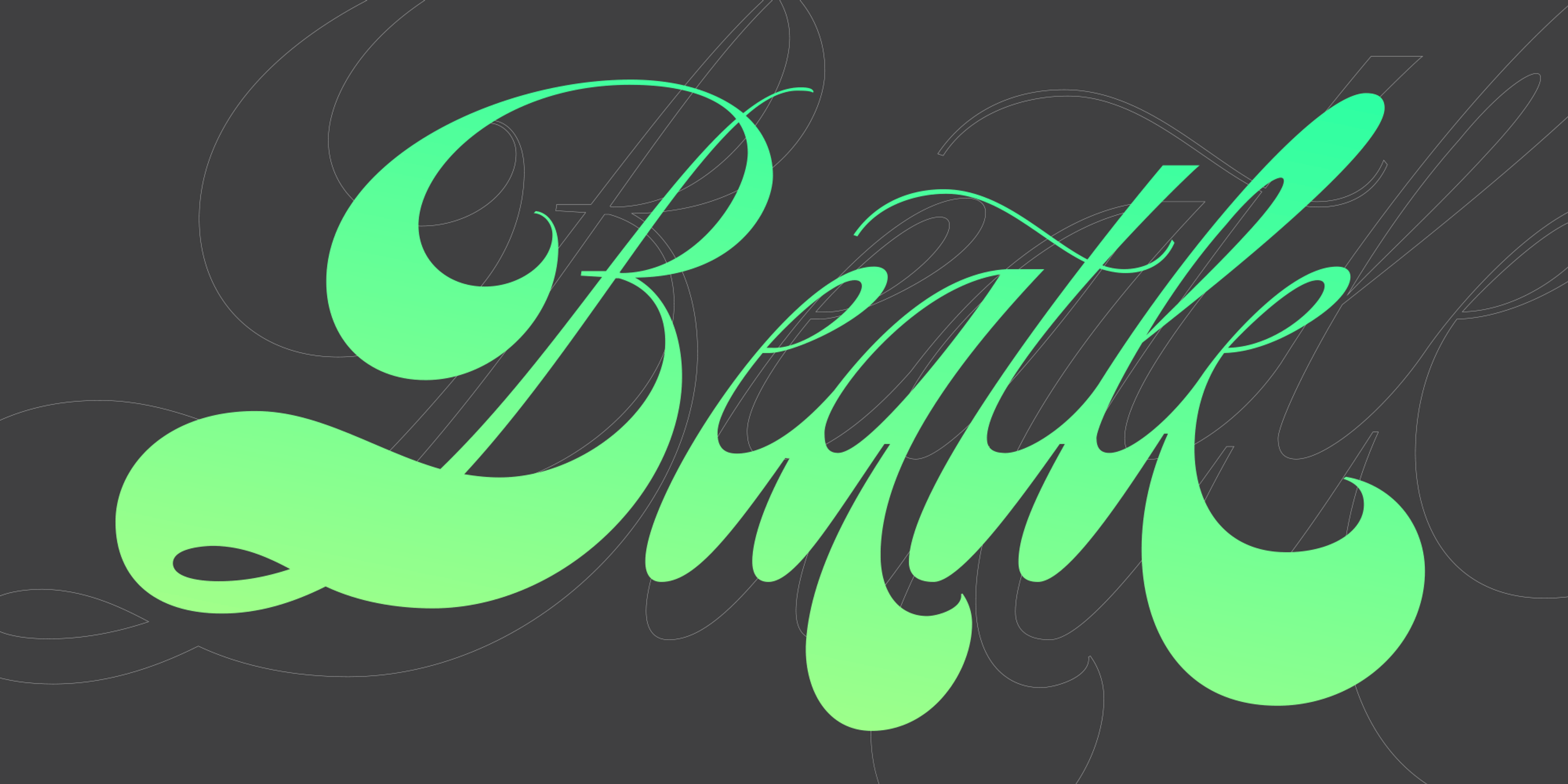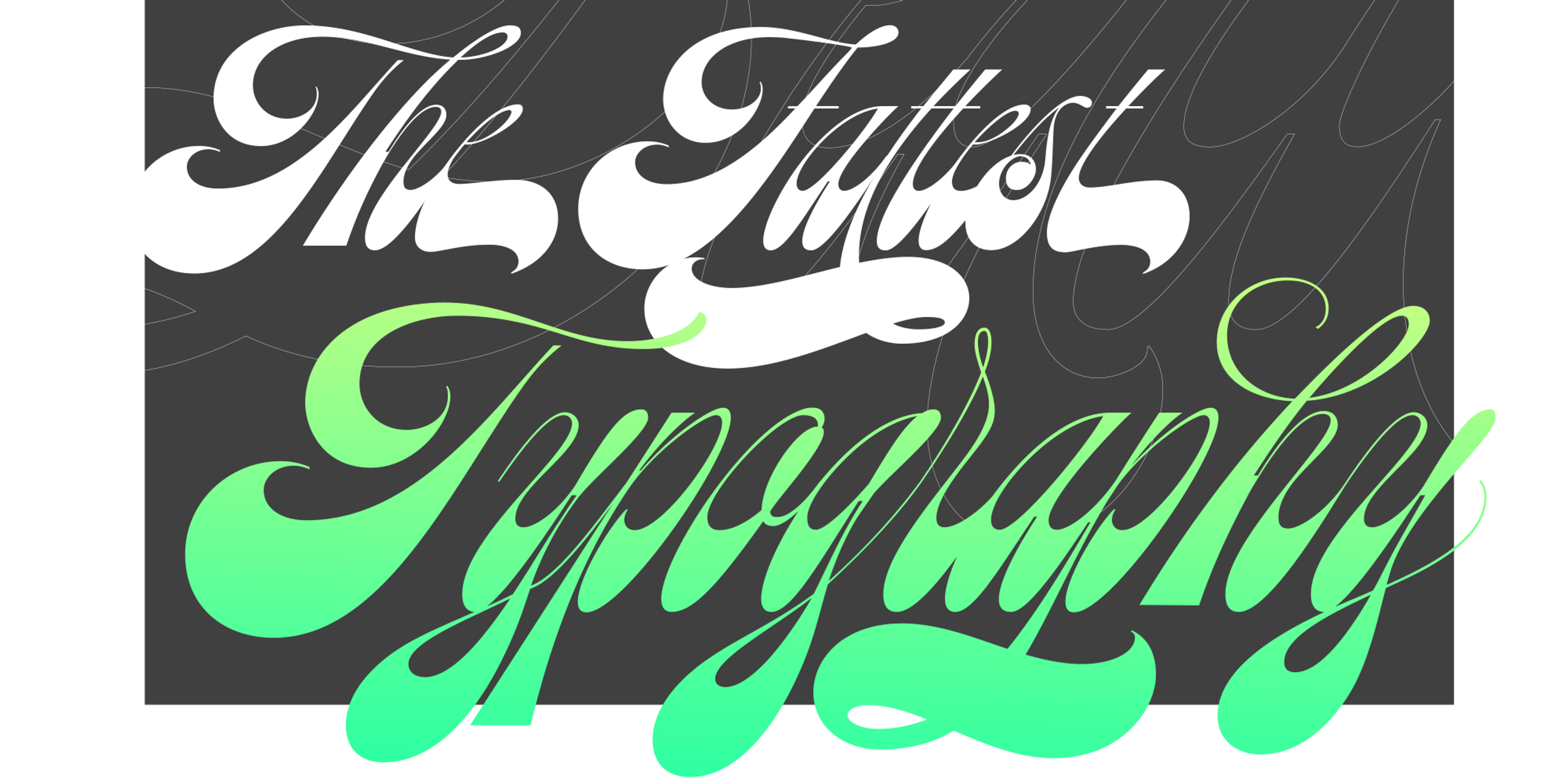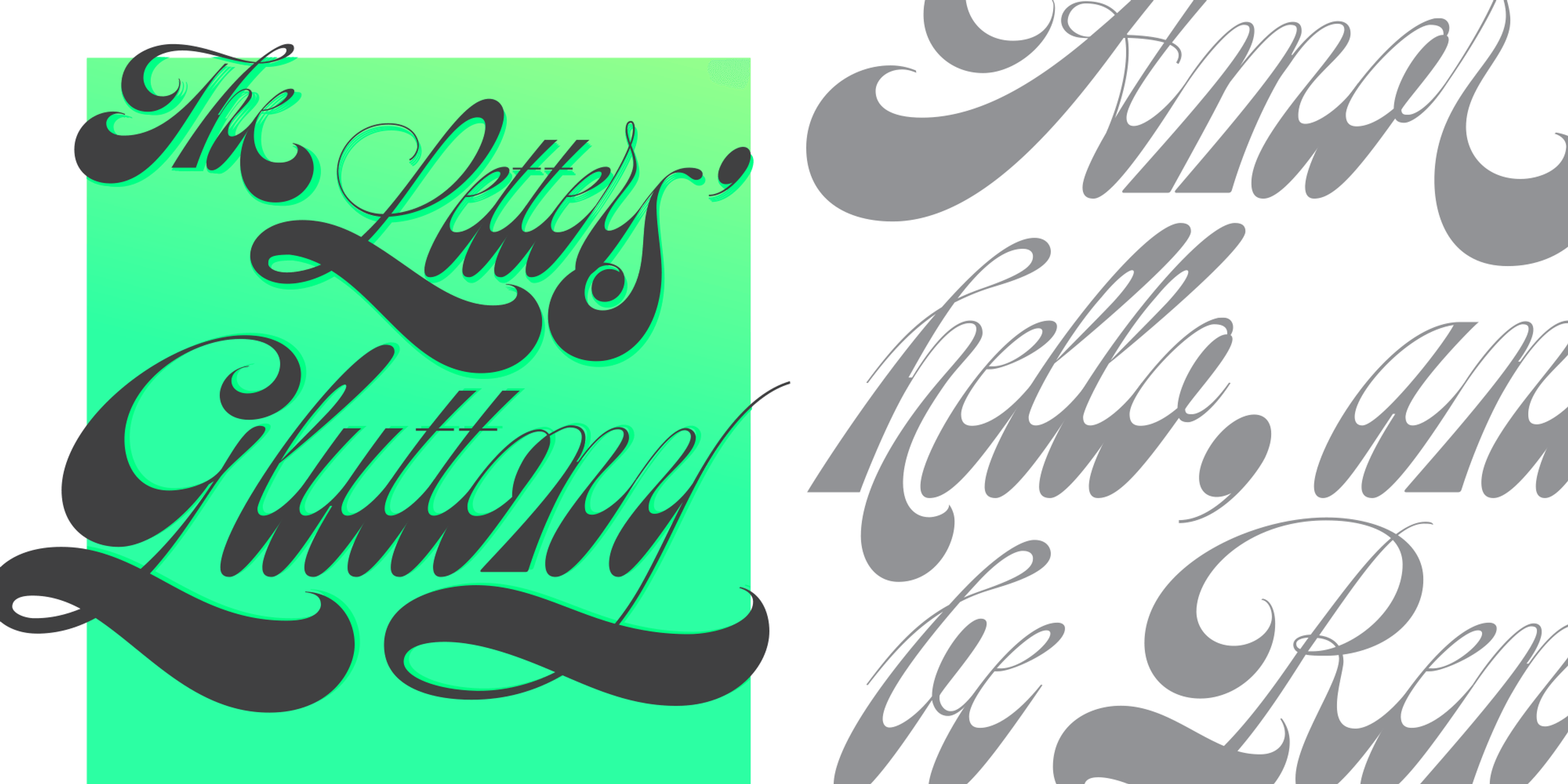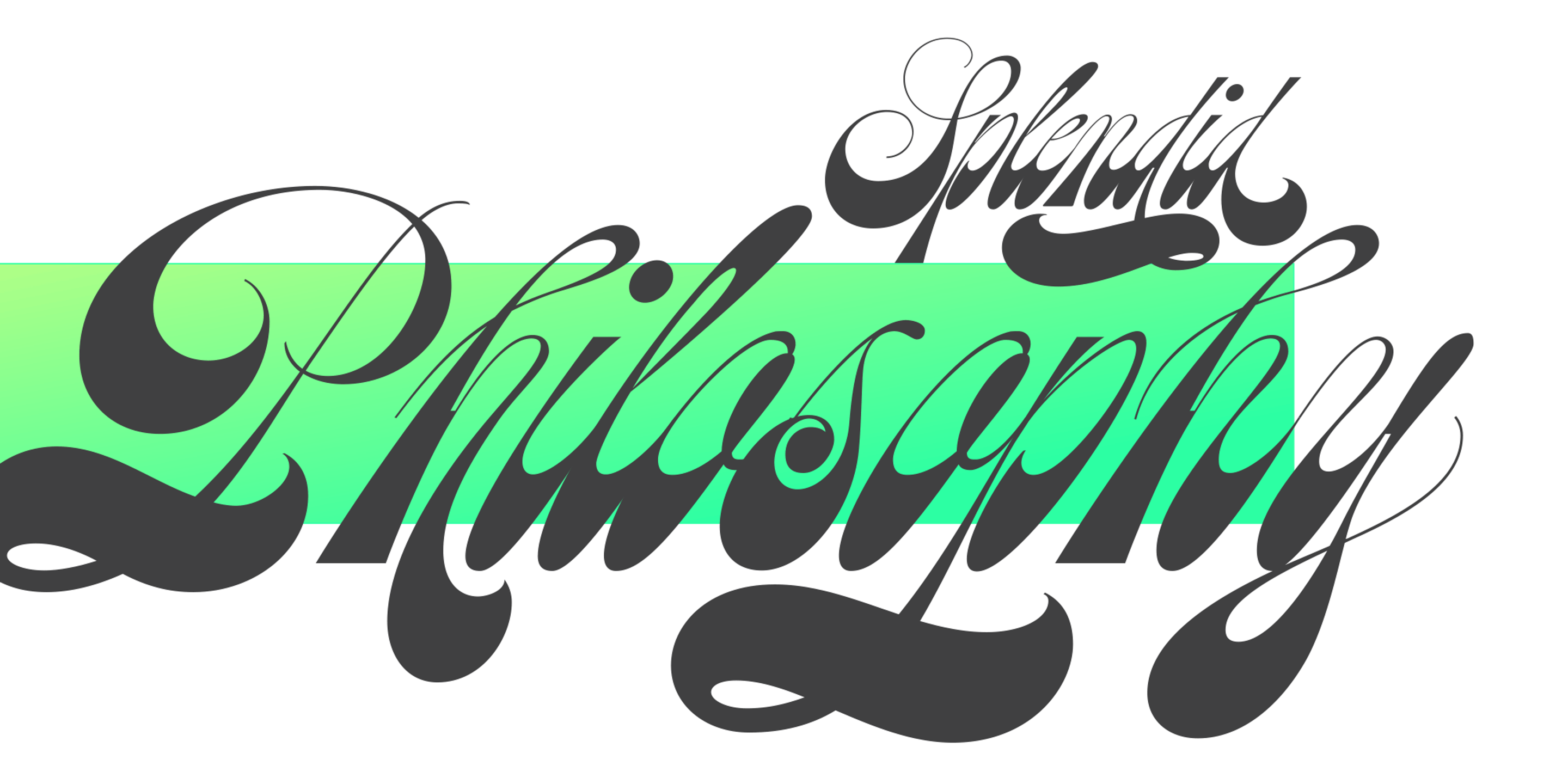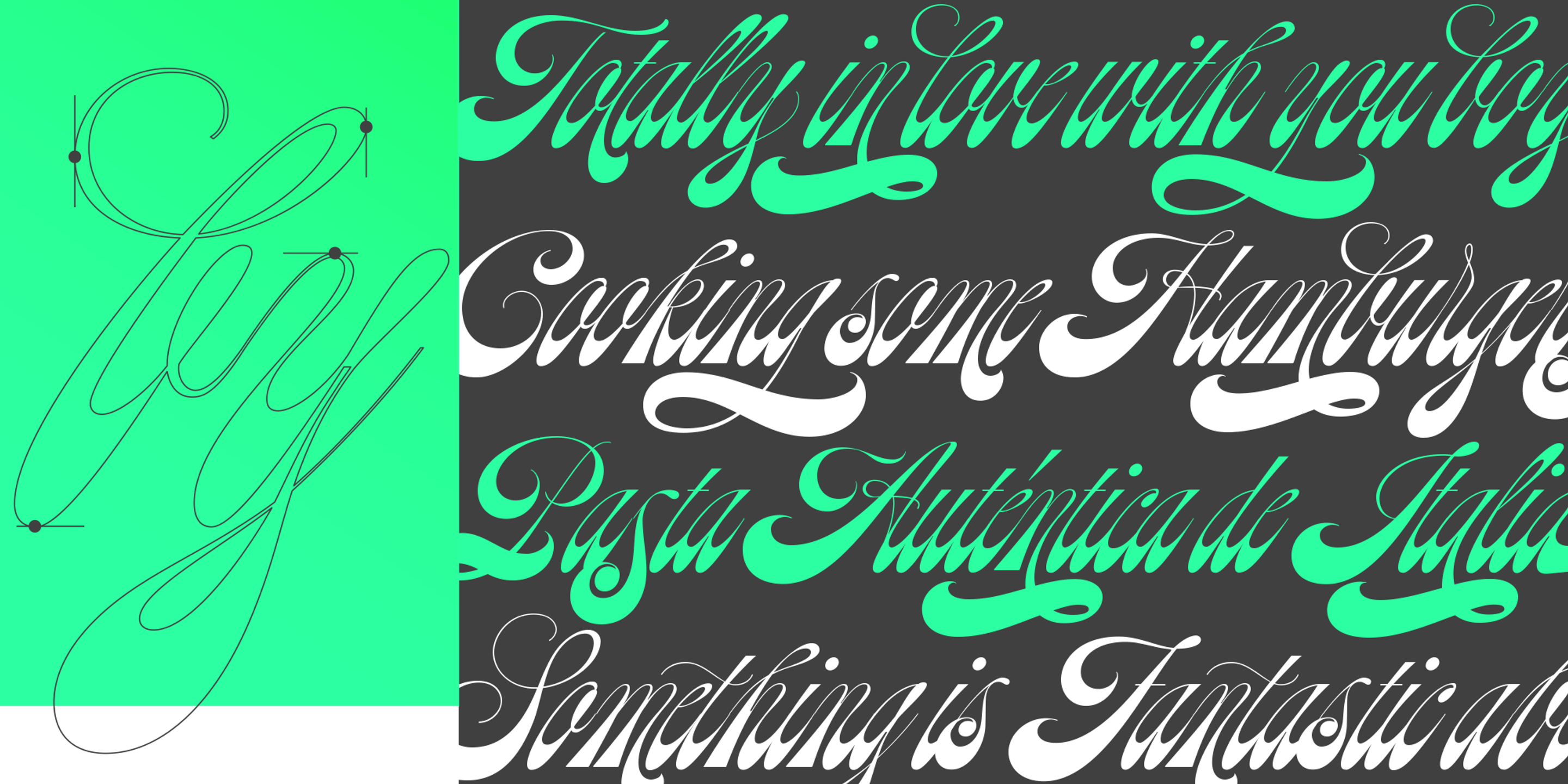
What if Platt R. Spencer and Charles P. Zaner were born in the mid-20th Century? What if they were fans of The Beatles or The Mamas & Papas? Beatle is what those masters would have made. Letters shouting for peace, like a true hippie does, with a lot of elegance. With Beatle, Max wanted to mix the delicacy of Engrosser’s script with the exuberance of flower power. The result is a font designed with freedom, filled with provocative alternates and fat tails. Enjoy it, and of course, let it be.
OpenType Features
- Common Ligatures
- Discretionary Ligatures
- Stylistic Alternates
- Stylistic Sets
- Swashes
- Titling Capitals